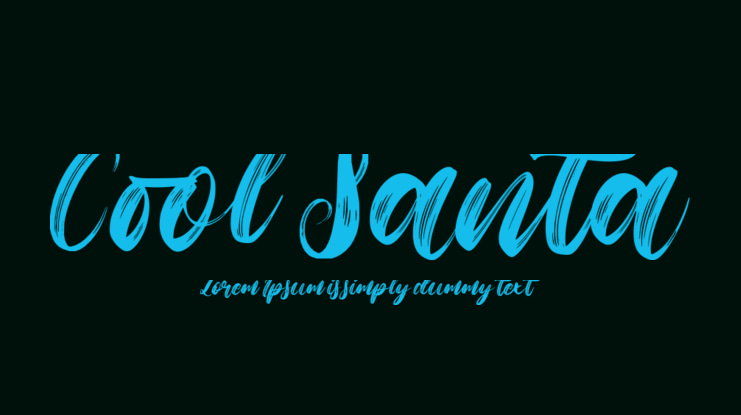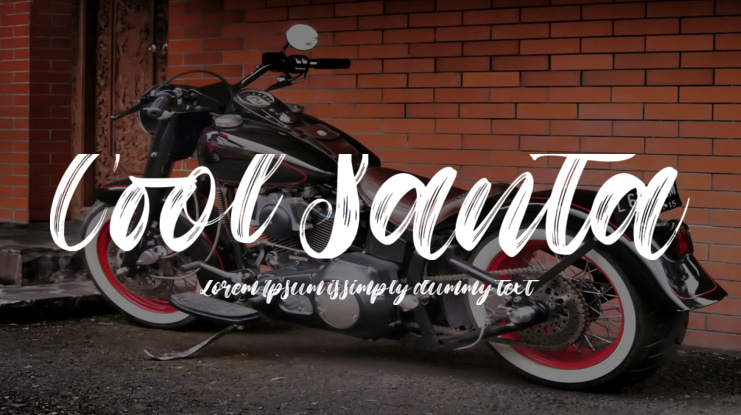
Cool Santa Font
Cool Santa is a cute, unique, and friendly script font. It has a modern yet whimsical style and will undoubtedly immerse your designs into a magical world. This font is perfect for various Christmas and New Year design purposes.